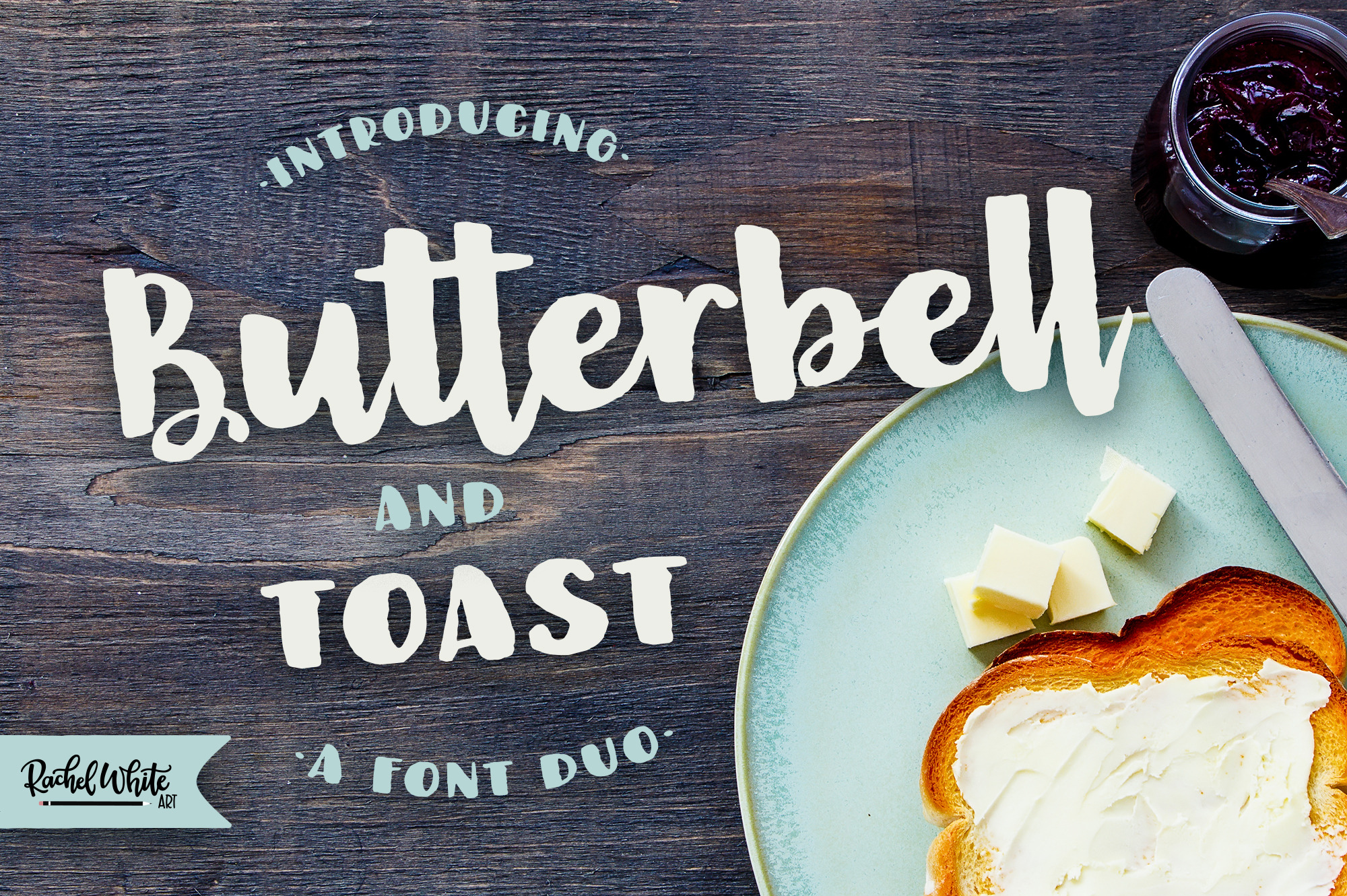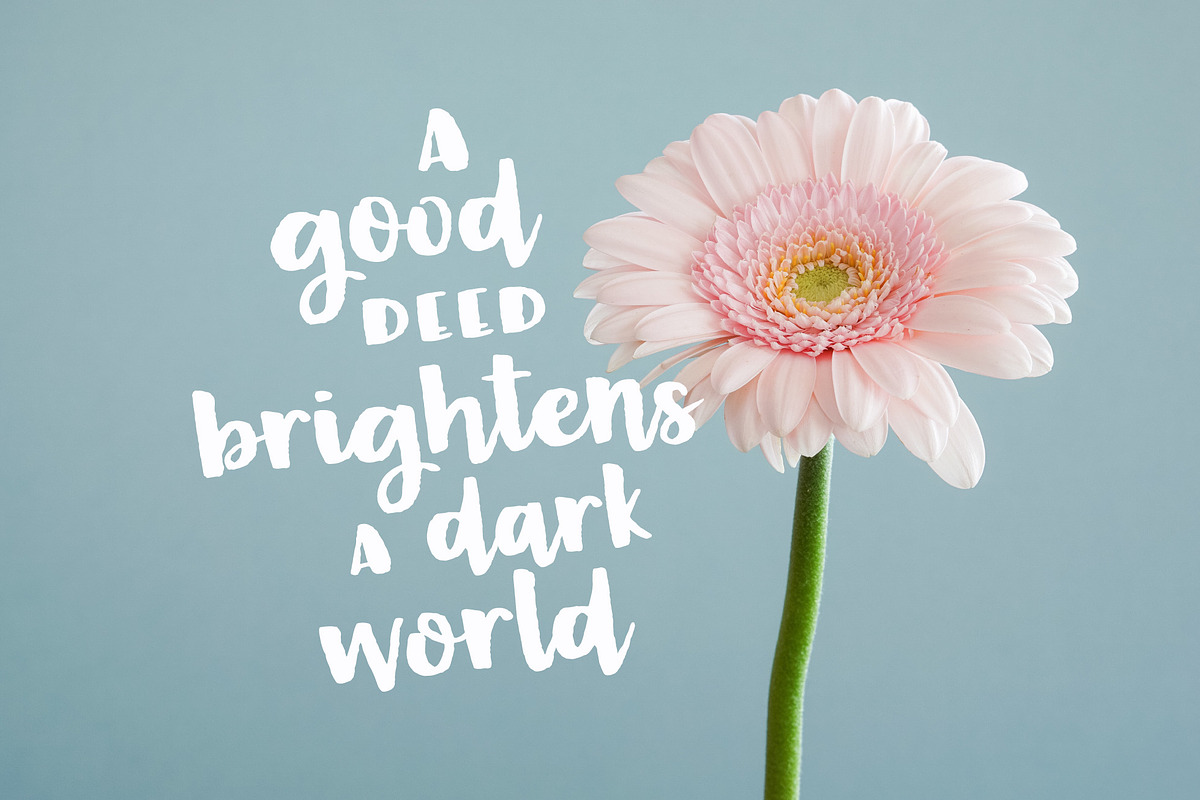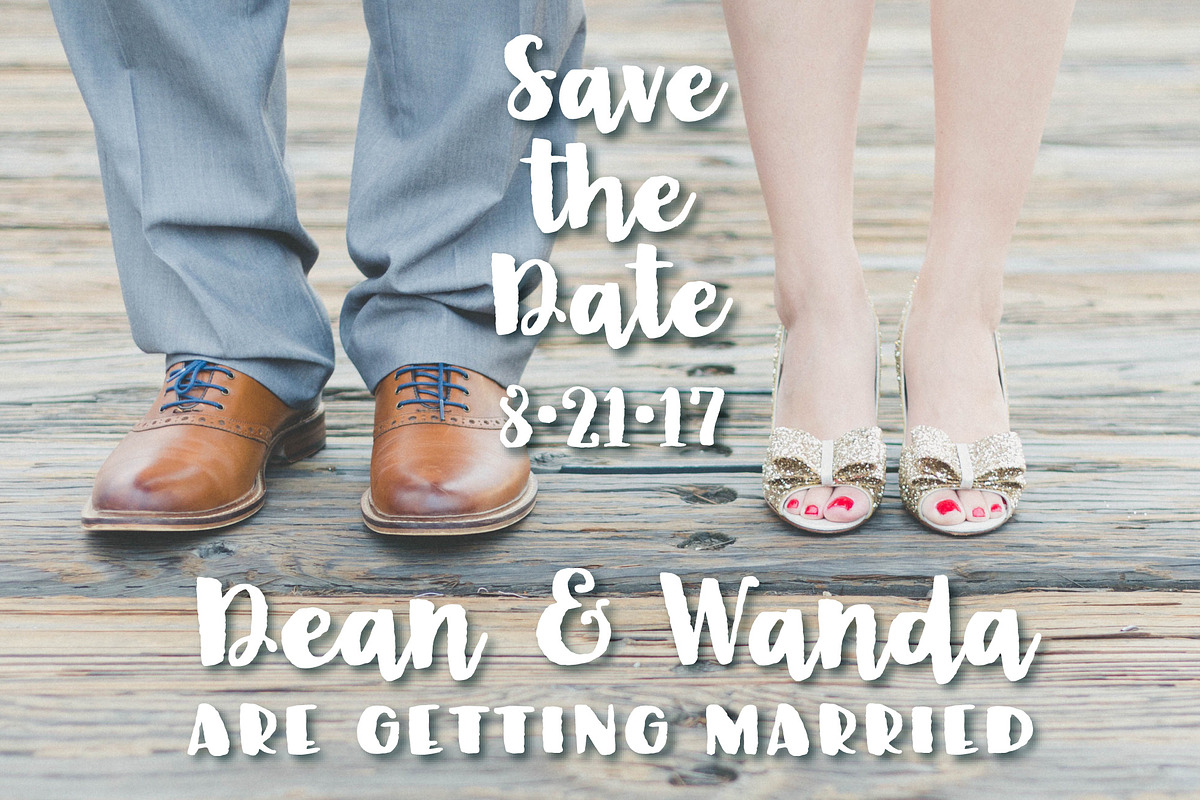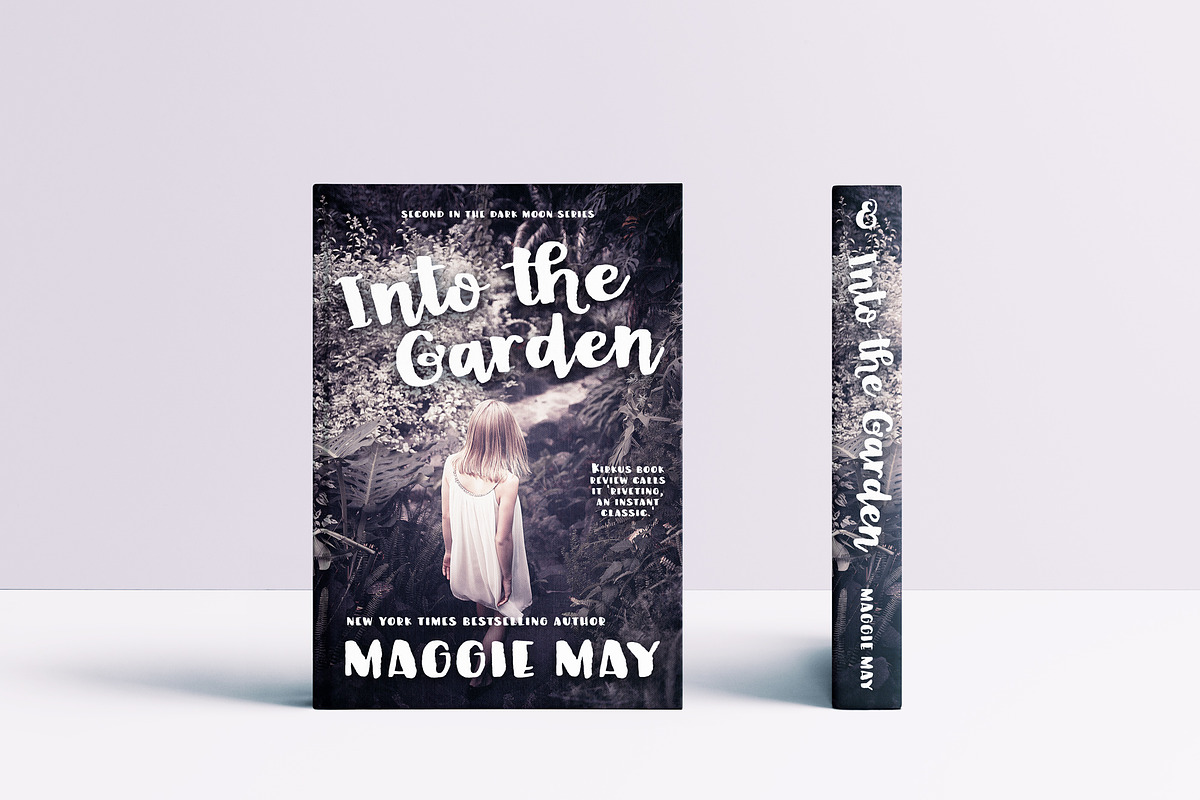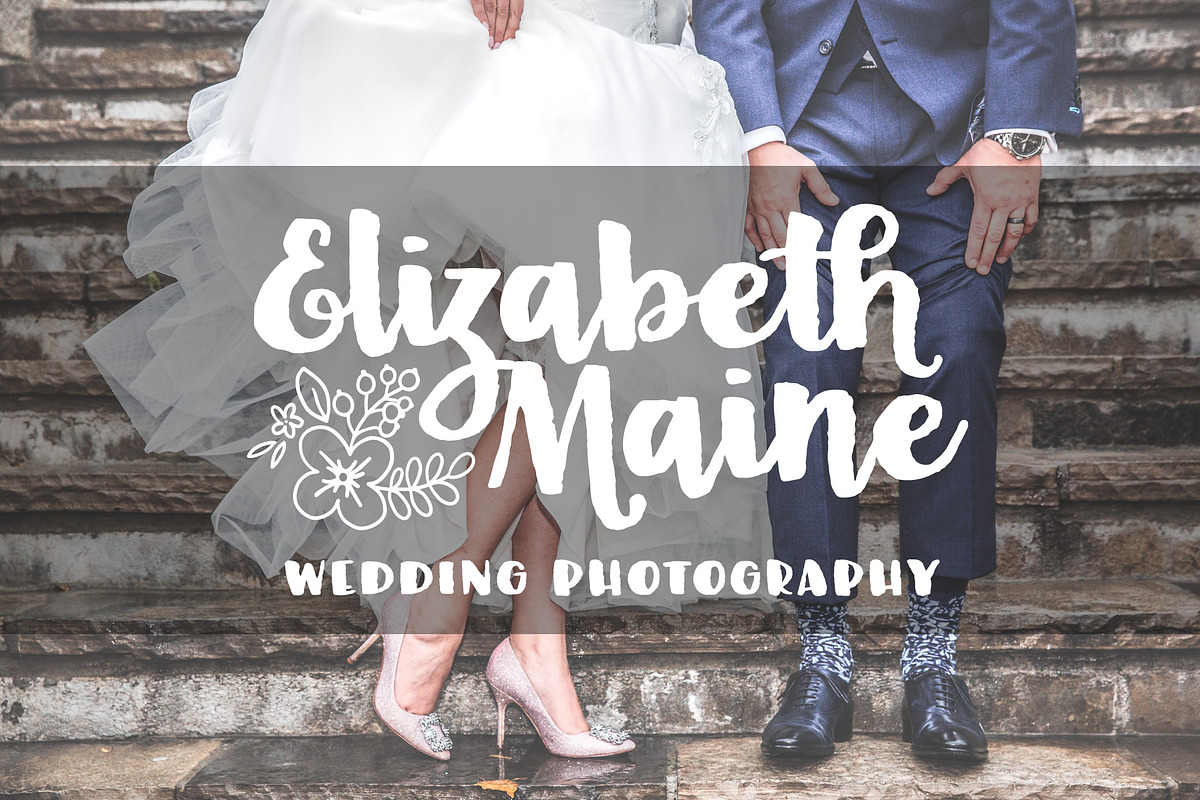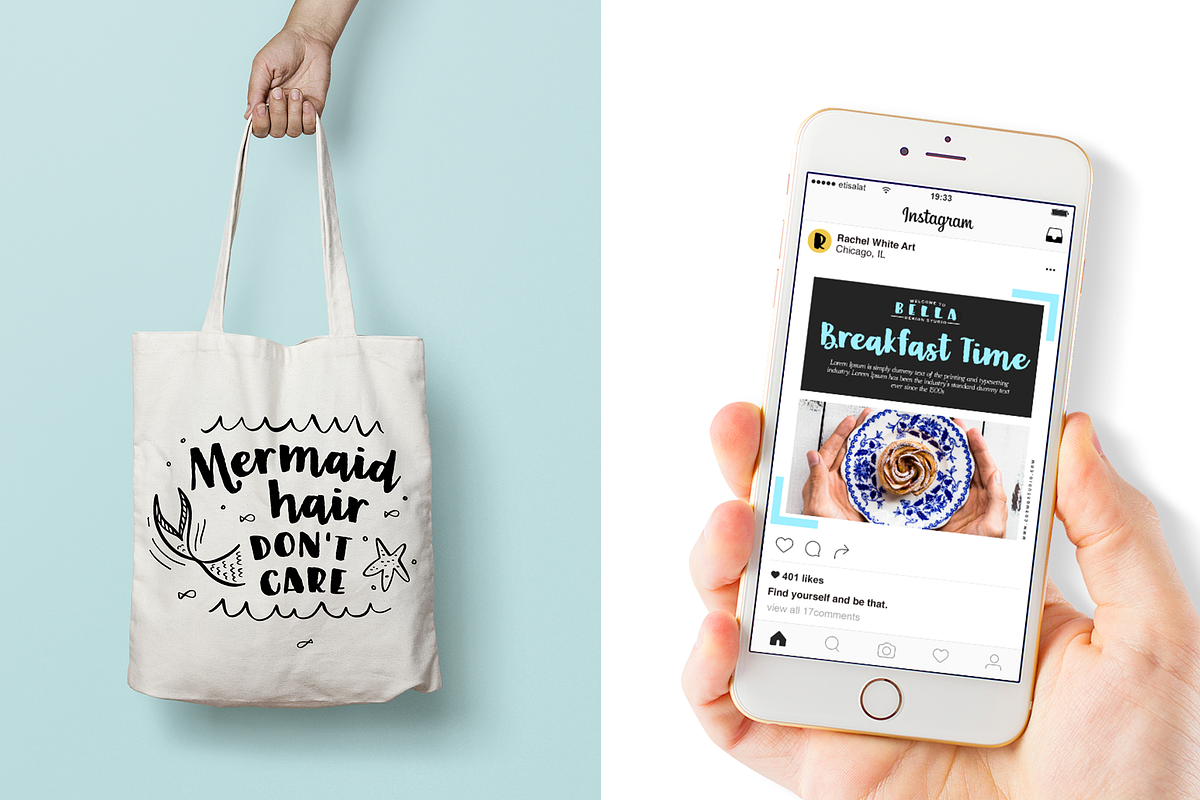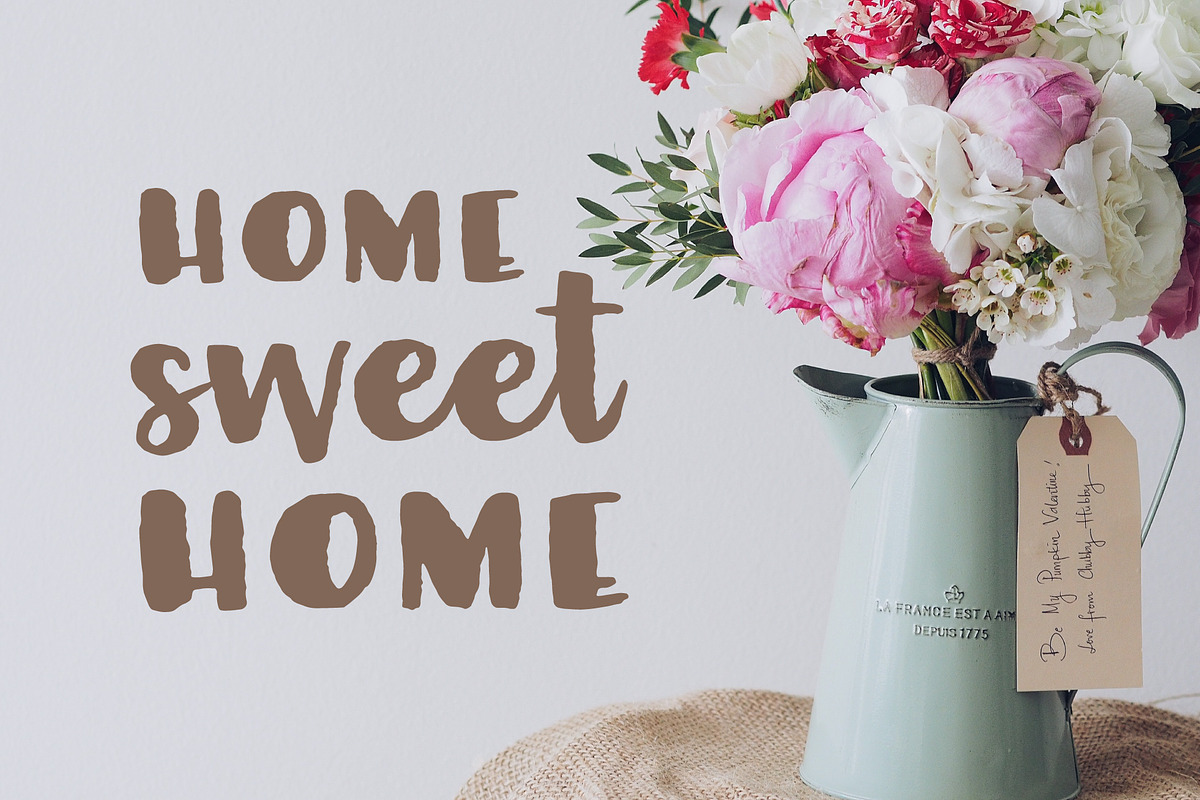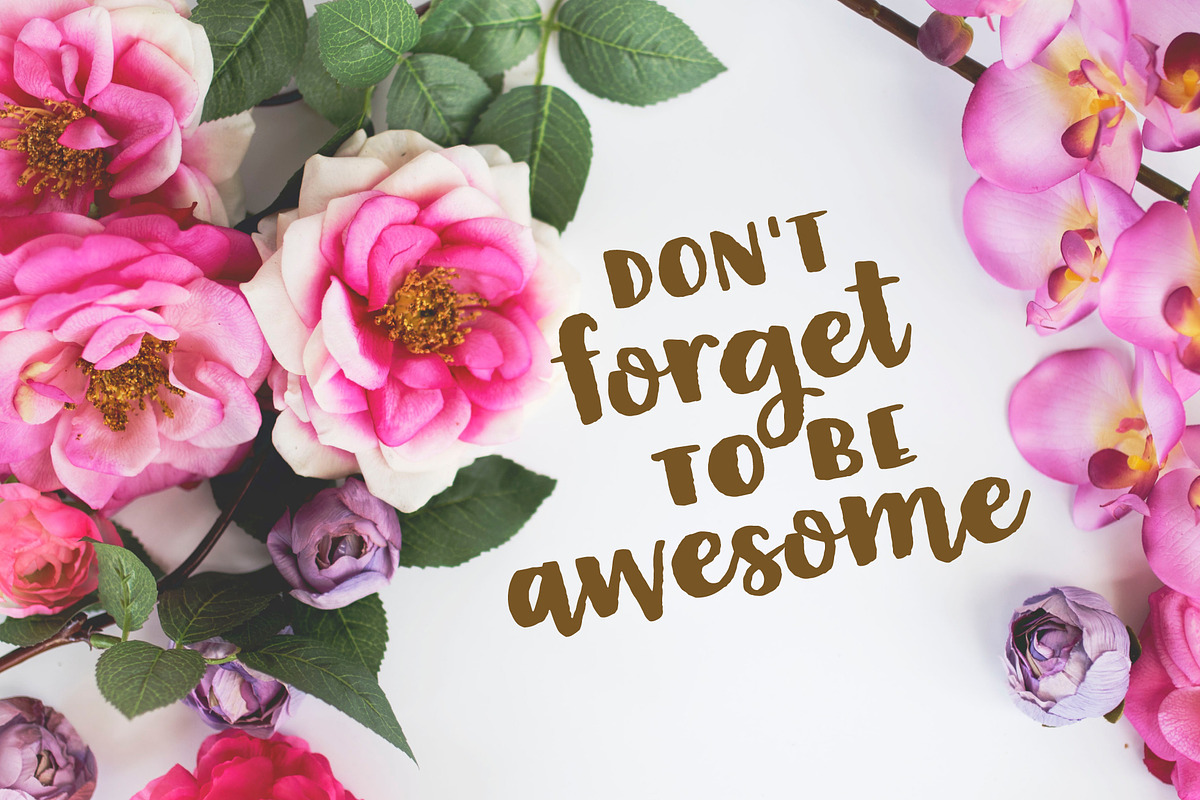
Butterbell & Toast Textured Font Duo
Butterbell & Toast – A Textured Script & Caps Font Duo Butterbell & Toast is a charming hand-lettered font duo featuring a soft script font (Butterbell) and a bold all-caps font (Toast)—both with a watercolor texture that gives your designs a handcrafted, artistic feel.
These two fonts were made to pair perfectly. Use Butterbell for names, signatures, or quotes, and Toast for headlines, packaging, or emphasis. Together, they’re ideal for branding, invitations, greeting cards, and product designs that need a touch of texture and whimsy.